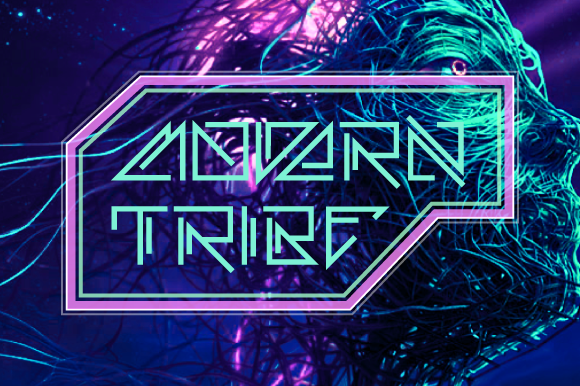
Embark on an interstellar adventure with Modern Tribe, the captivating display font that takes you to the furthest reaches of imagination. Inspired by the vastness of space and the mysteries it holds, this font is a testament to the power of creativity and the boundless possibilities of the written word.
With its bold and commanding presence, Modern Tribe is a true standout, capturing attention and leaving a lasting impression. Each letter is meticulously crafted to evoke a sense of wonder and intrigue, transporting you to a realm where the ordinary becomes extraordinary.
As you explore the depths of Modern Tribe, you'll discover a symphony of glyphs that dance and play across the page. From the sharp angles and clean lines to the subtle curves and flourishes, every detail has been carefully considered to create a font that is both visually striking and easy to read.
Whether you're crafting eye-catching headlines, designing captivating posters, or creating immersive digital experiences, Modern Tribe is your trusted companion. Its versatility knows no bounds, seamlessly adapting to a multitude of projects and applications.
Join the ranks of creative visionaries who have embraced the allure of Modern Tribe. Let your words take flight and transport your audience to new dimensions of imagination. With this extraordinary font at your disposal, the possibilities are infinite.